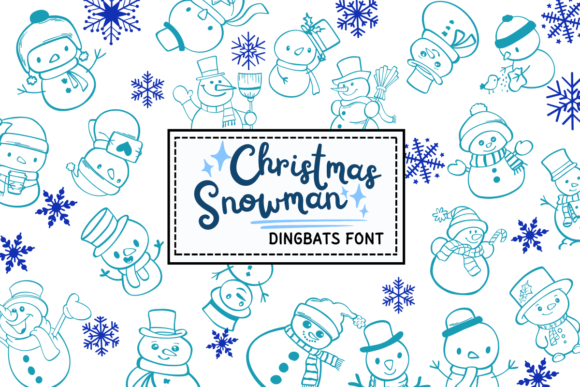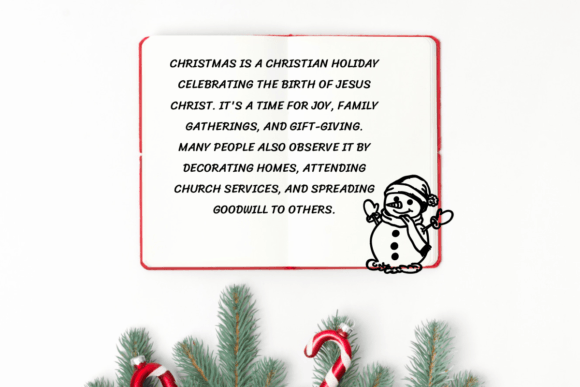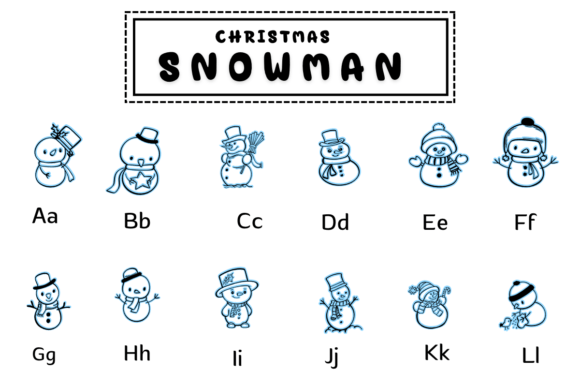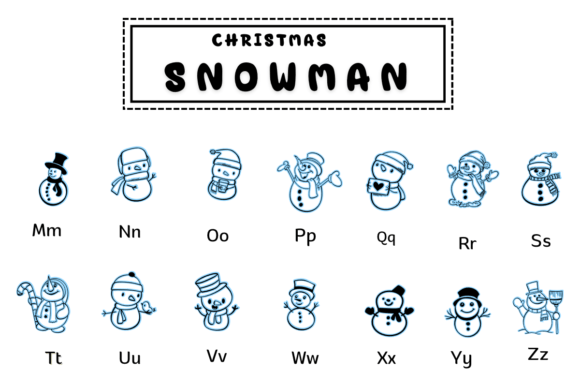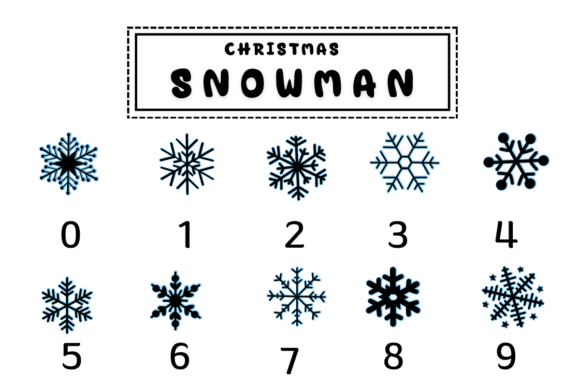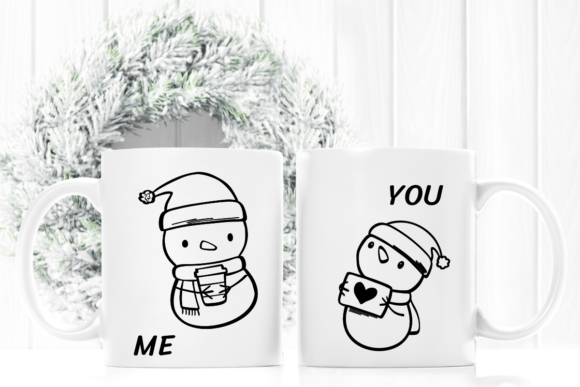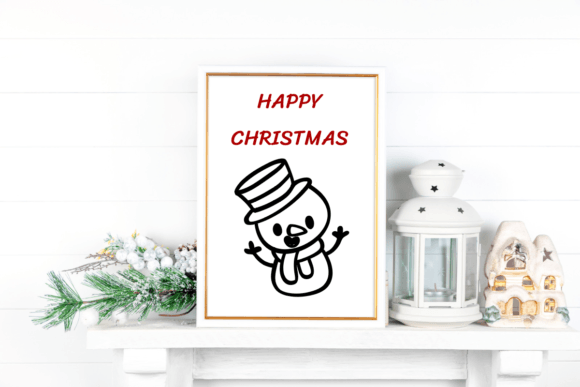
Winter Wonderland Typography: Discover the Magic of Christmas Snowman Font
As I sat by the fireplace, sipping hot cocoa and scrolling through my design projects, I stumbled upon the perfect way to bring some festive cheer to my holiday cards and gift tags. I was looking for a font that would add a playful touch to my designs, something that would transport me to a snowy winter wonderland. And then, I found it – the Christmas Snowman Font, a delightful dingbat font featuring adorable snowman images.
This fun and whimsical font is perfect for adding a personal touch to your holiday projects. With each character showcasing a different snowman, you can create unique and eye-catching designs that will spread joy to all who see them. As a designer, I can attest that having a versatile font like Christmas Snowman Font is invaluable, especially during the holiday season. It’s a game-changer for anyone looking to create festive and fun designs that will stand out from the crowd.
Key Features of Christmas Snowman Font
- Unique Characteristics: The Christmas Snowman Font features a unique, hand-drawn design with intricate details and textures, giving it a festive and whimsical feel.
Designer Review: Christmas Snowman Font
Overall, I think the Christmas Snowman Font is a fun and playful addition to any winter-themed project. Here are some of its strengths:
- ✨ The font has a unique and festive feel that’s perfect for holiday projects.
- ✨ The characters are well-designed and easy to read, even in smaller sizes.
- ✨ The font comes in a variety of weights, making it easy to find the right fit for your project.
- ⚠️ The font may be too casual for more formal projects or designs.
- ⚠️ The font doesn’t include any special characters, such as accented letters or punctuation marks.
- ⚠️ The font may not be as versatile as some other fonts, making it less suitable for projects that require a lot of customization.
Overall, I think the Christmas Snowman Font is a great choice for projects that need a fun and festive touch. While it may not be suitable for every project, it’s a great addition to any winter-themed design.
Use the Christmas Snowman Font to add a festive touch to your holiday designs. Experiment with different font sizes, colors, and combinations to create a unique look.
Use the Christmas Snowman Font for:
- Holiday greeting cards and invitations
- Seasonal social media graphics
- Christmas party decorations and signage
- Winter-themed blog posts and articles